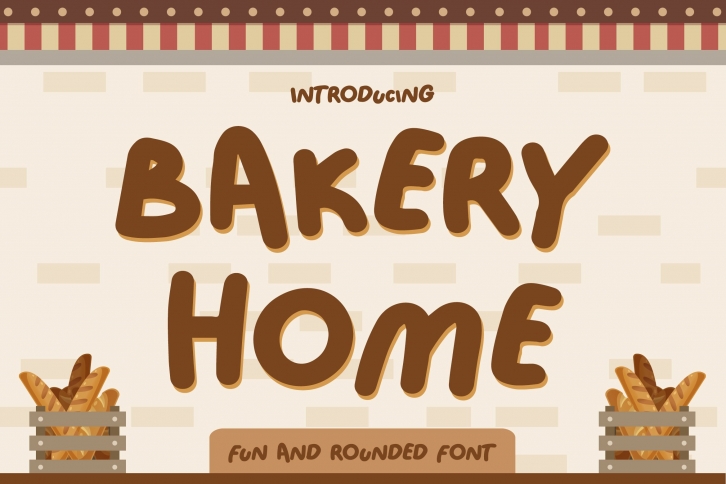
Bakery Home is a trendy and unique font with an authentic style. It was designed by Typefactory and it's a great choice for creative people who need such a font. It was released on June 9, 2021 and the file size is 13.19 MB. Bakery Home will add an organic vibe to any design idea!